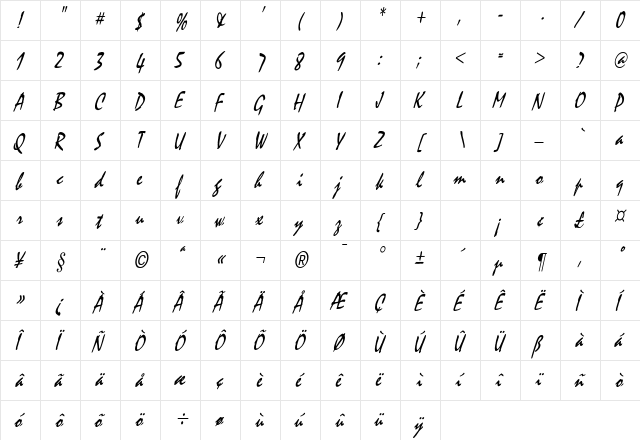
Mystic Thin Italic Font Preview
Design Context for Mystic Thin Typeface
Mystic Thin takes a measured approach to typography — its balanced proportions and neutral character make it a reliable workhorse for both digital and print work. The dynamic lean of this cut emphasises speed and emphasis in any layout. Its slender proportions lend an understated elegance to any composition.
Pro Tip: Try Mystic Thin for annotation and caption copy alongside an upright companion — the contrast in angle creates a dynamic but ordered typographic system.